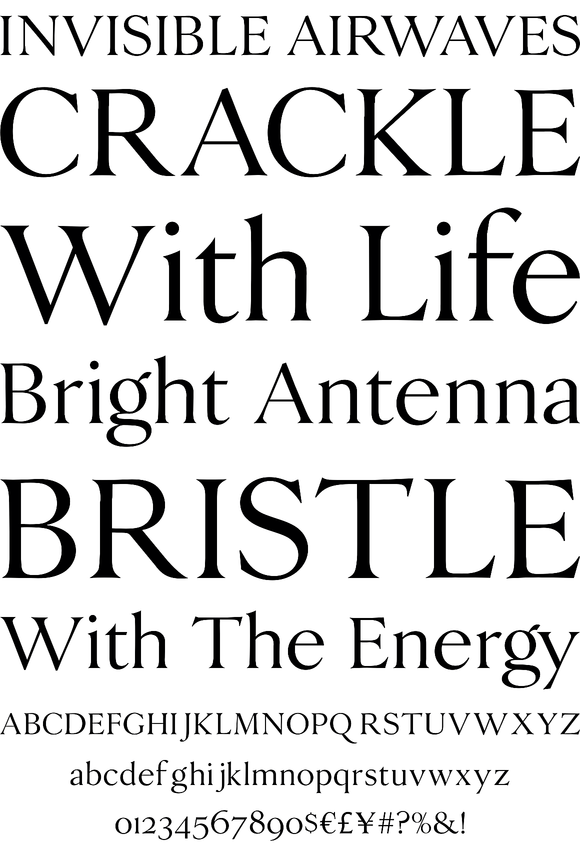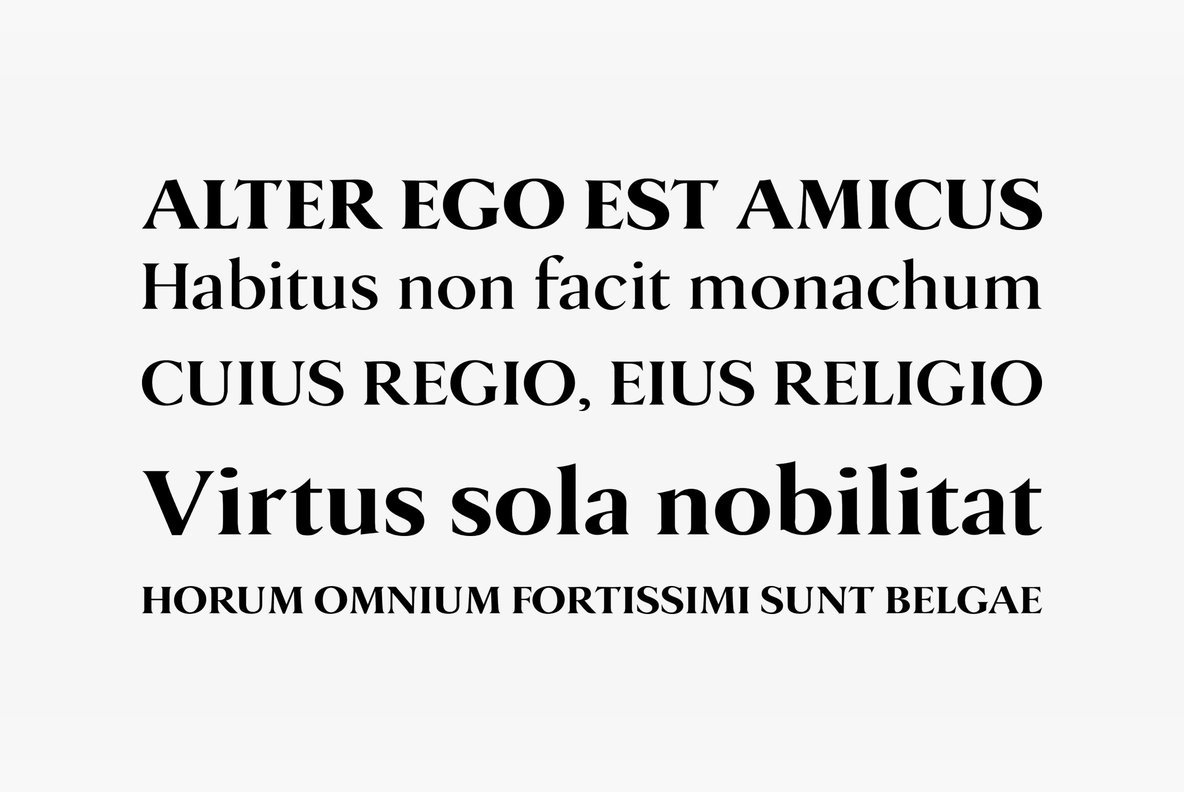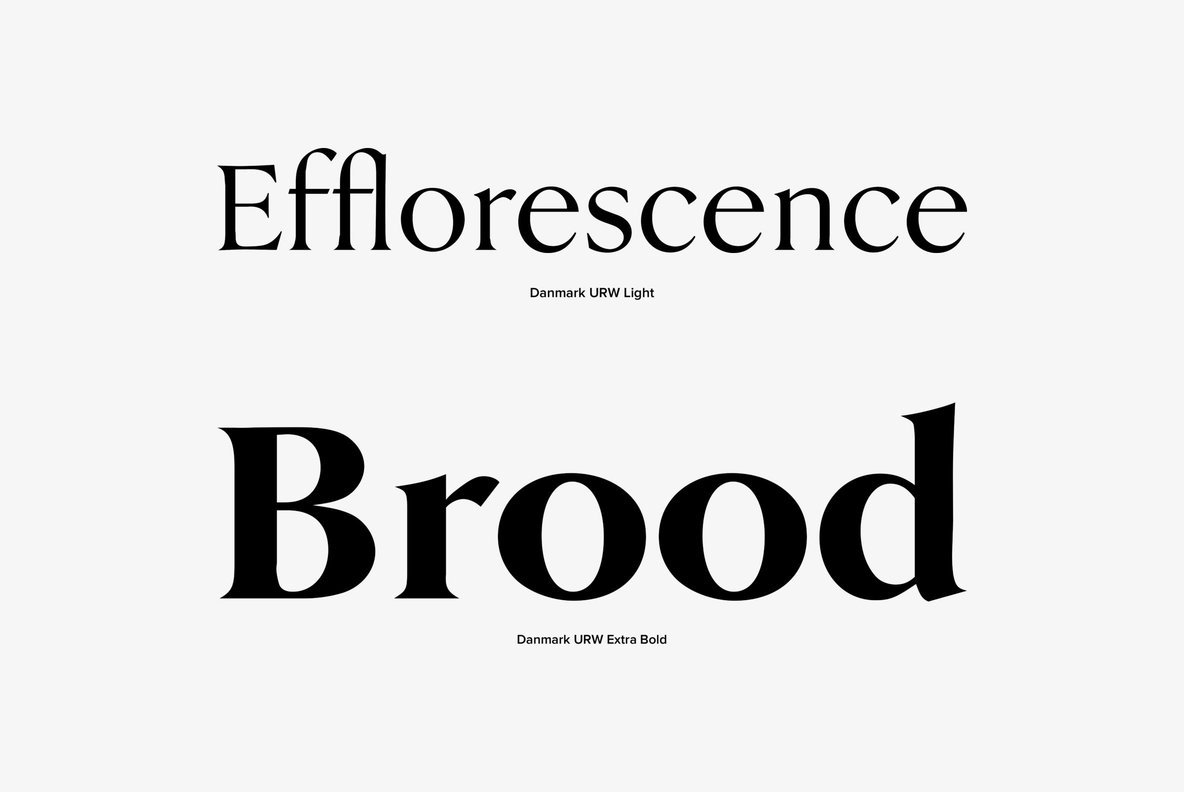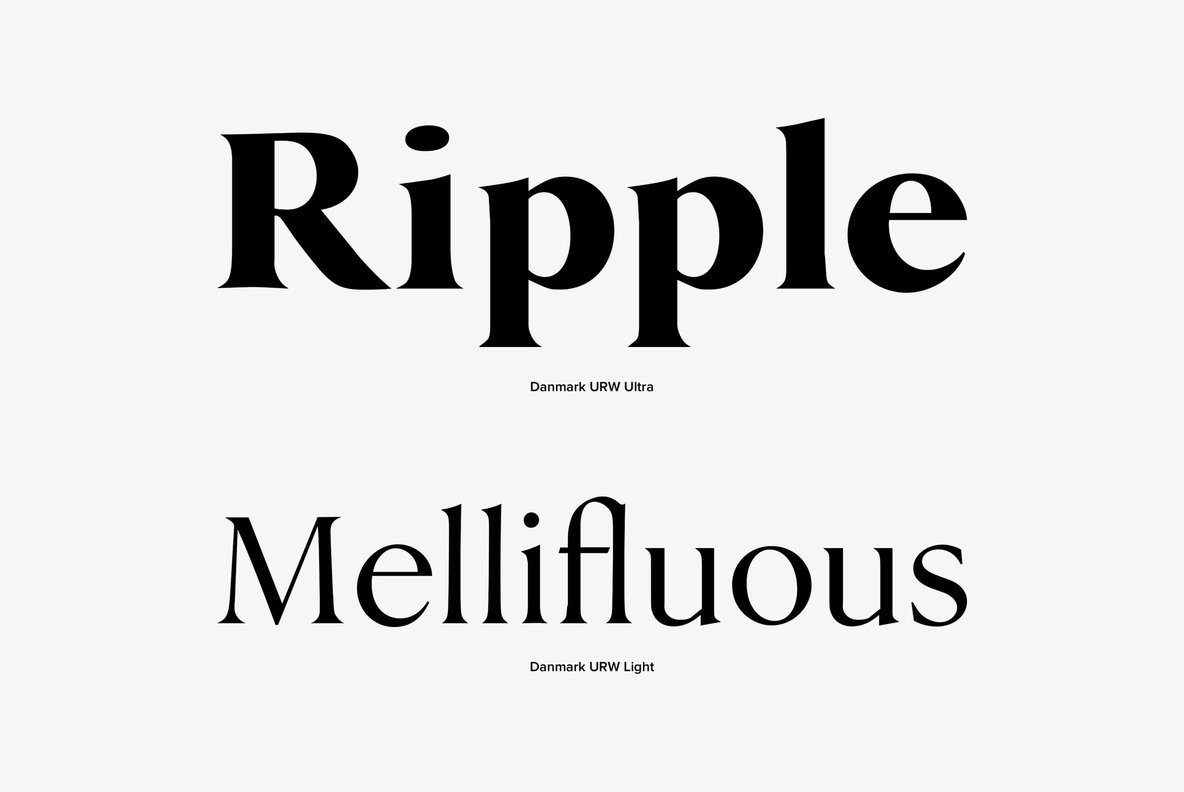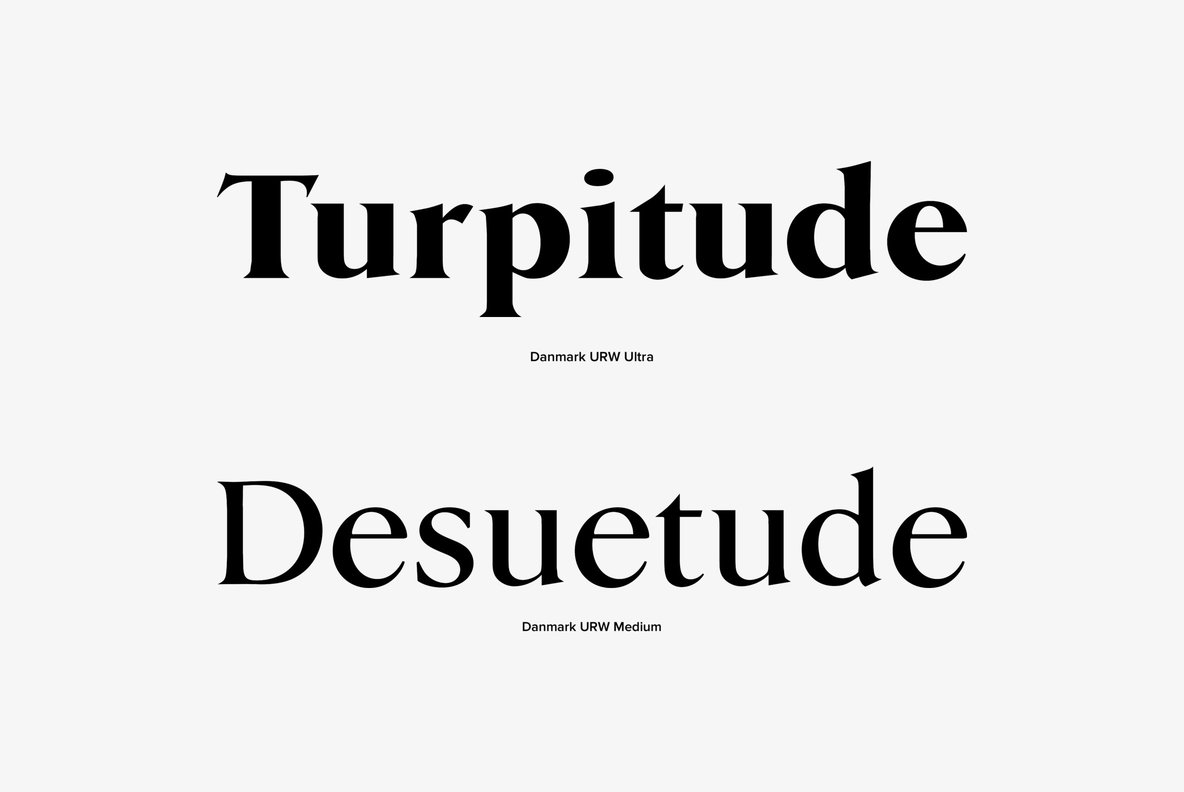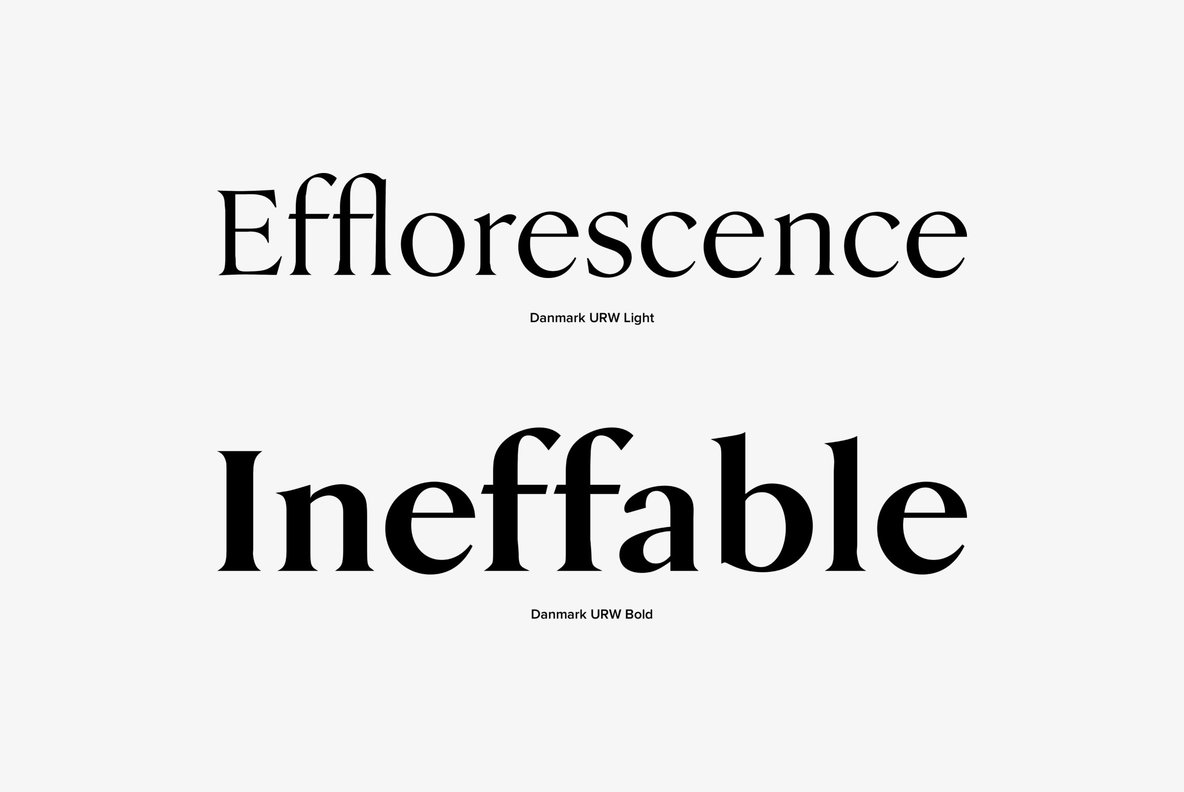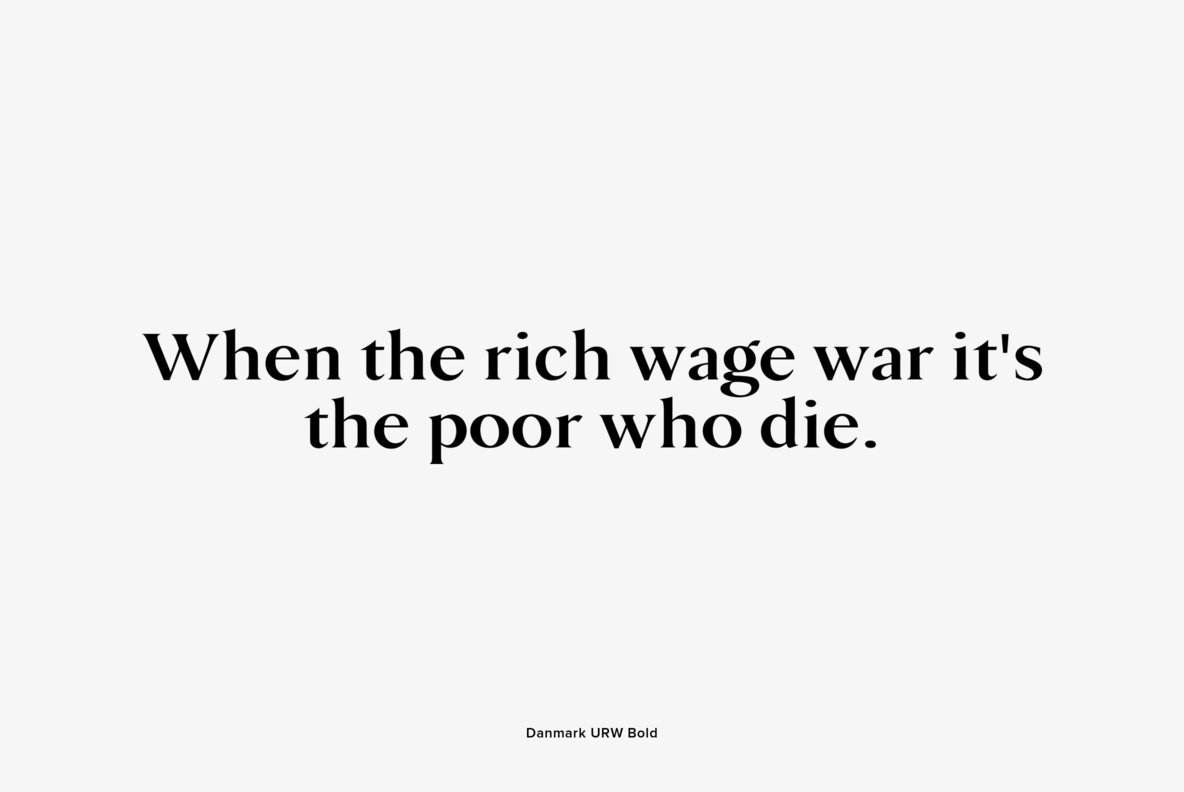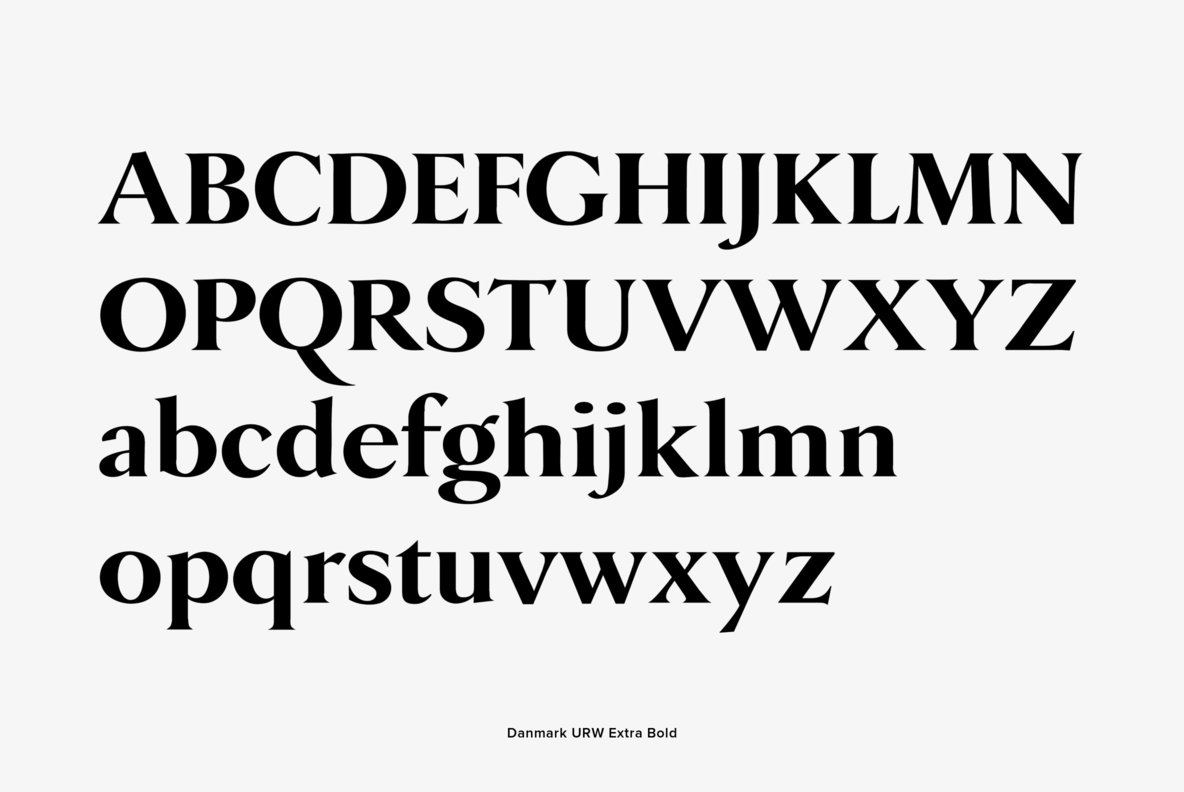
Danmark
Designed by URW Studio in 1995, Danmark is an elegant and strong serif design. Contains language support for West, East, Turkish, Baltic, and Romanian.